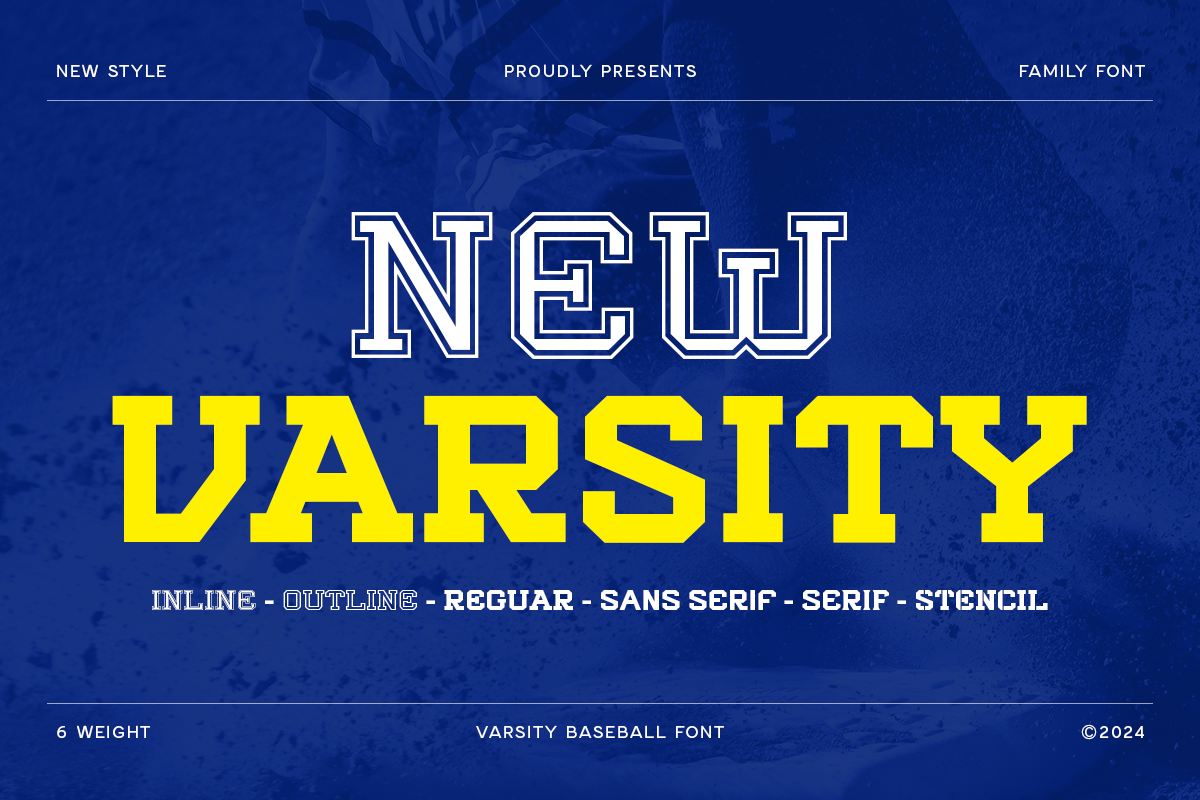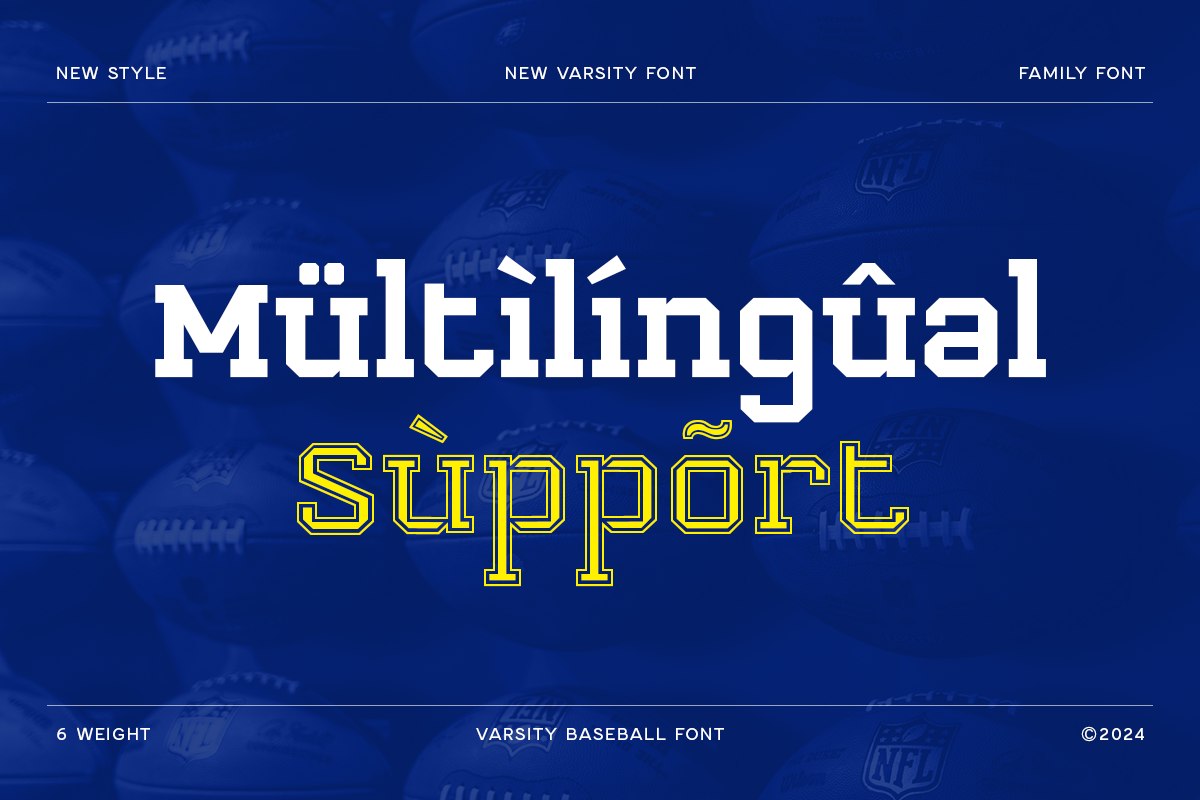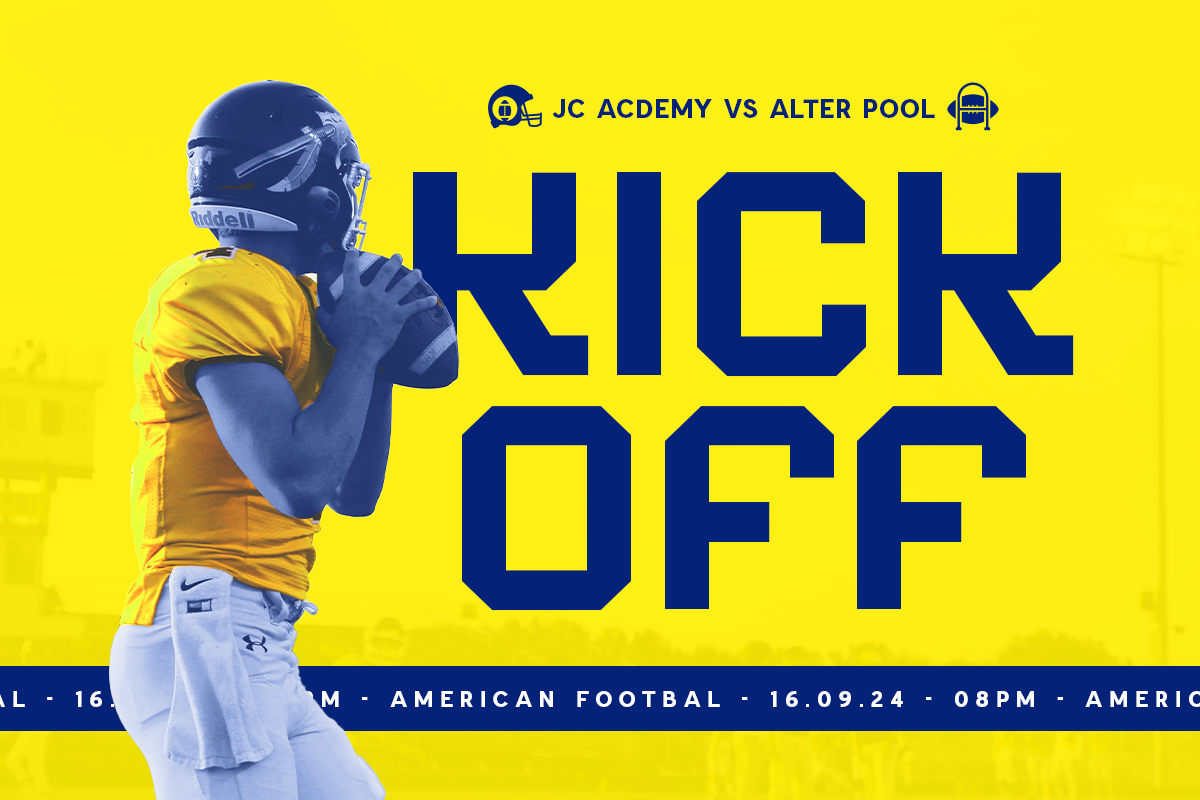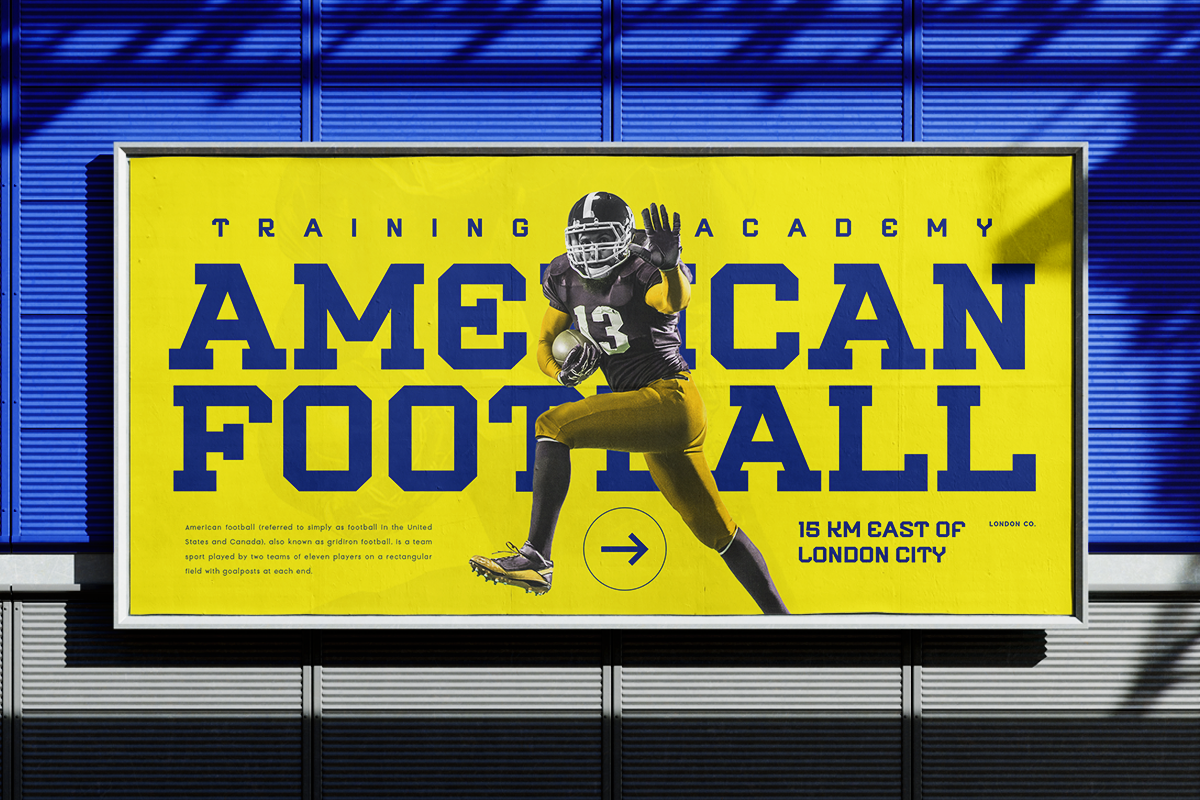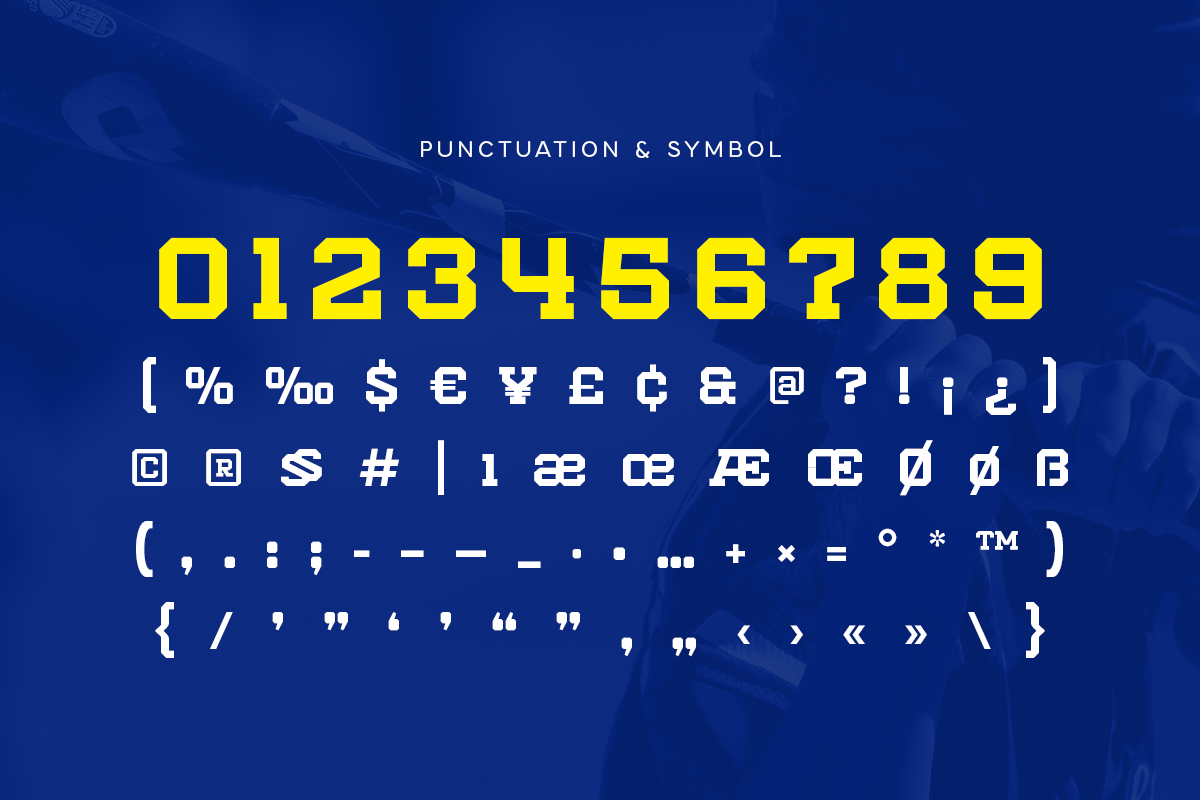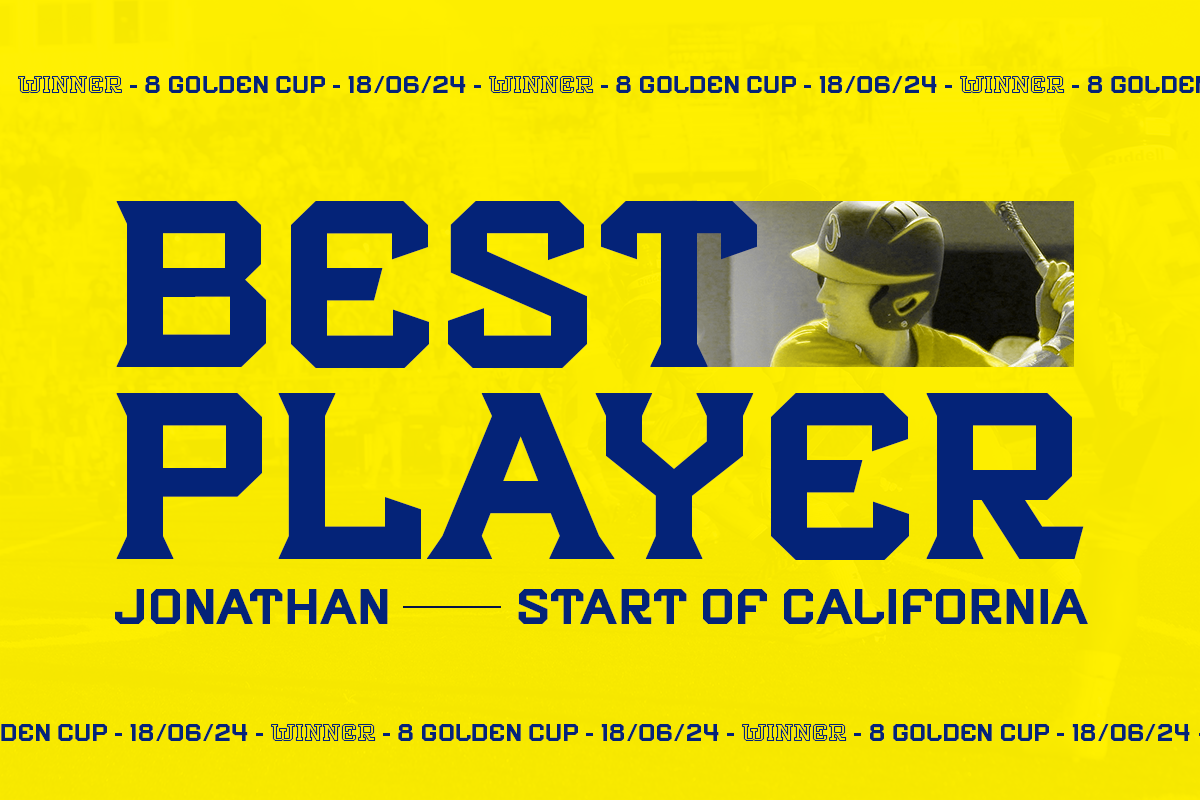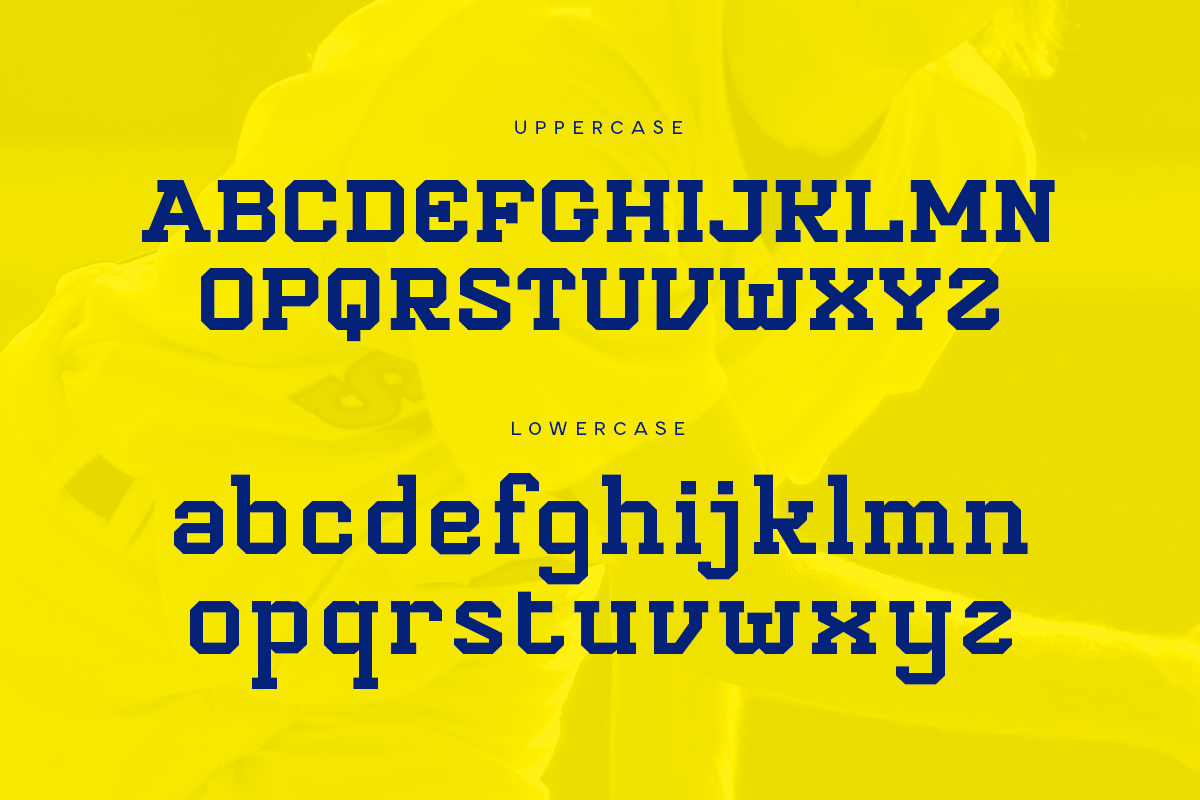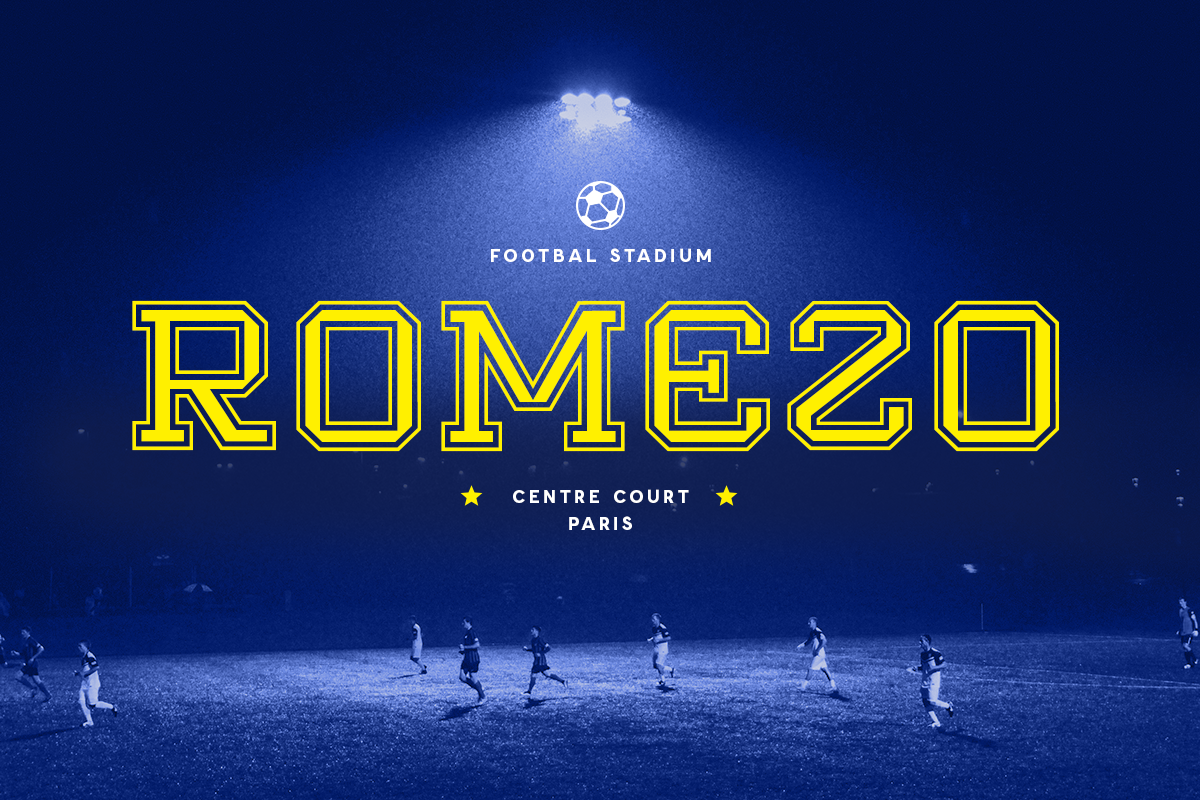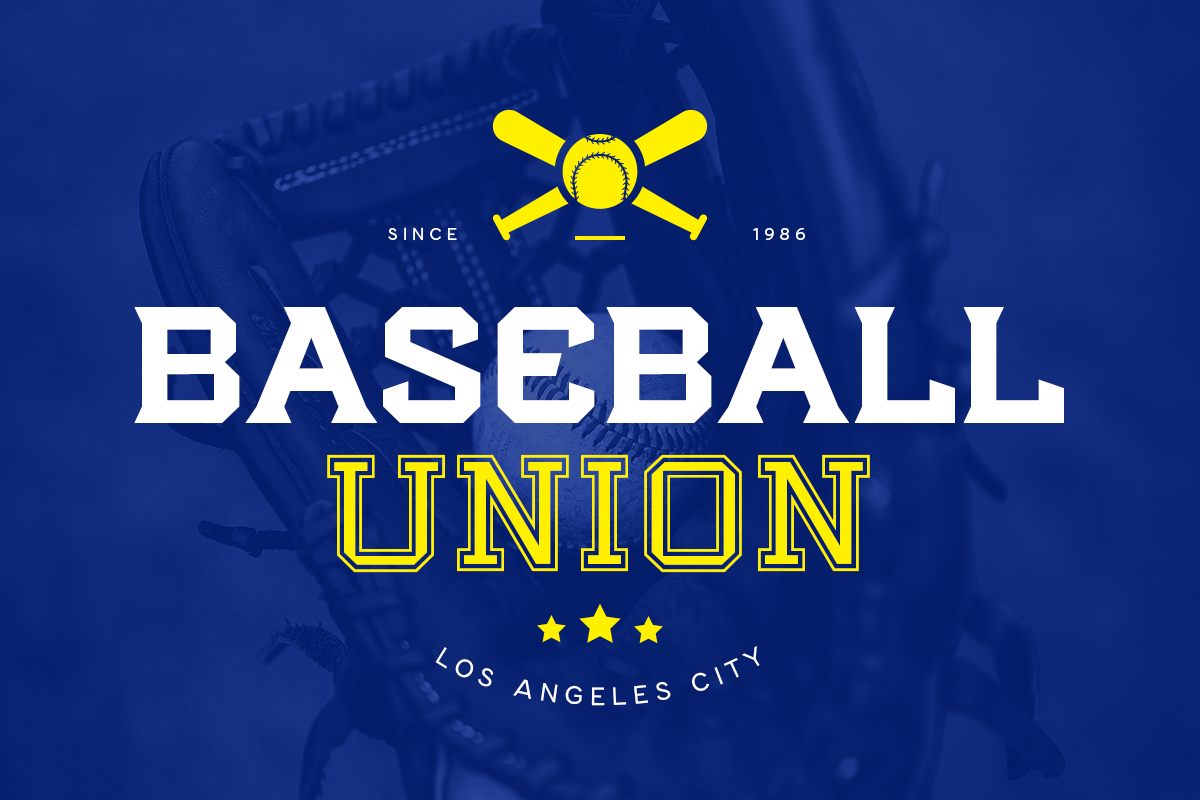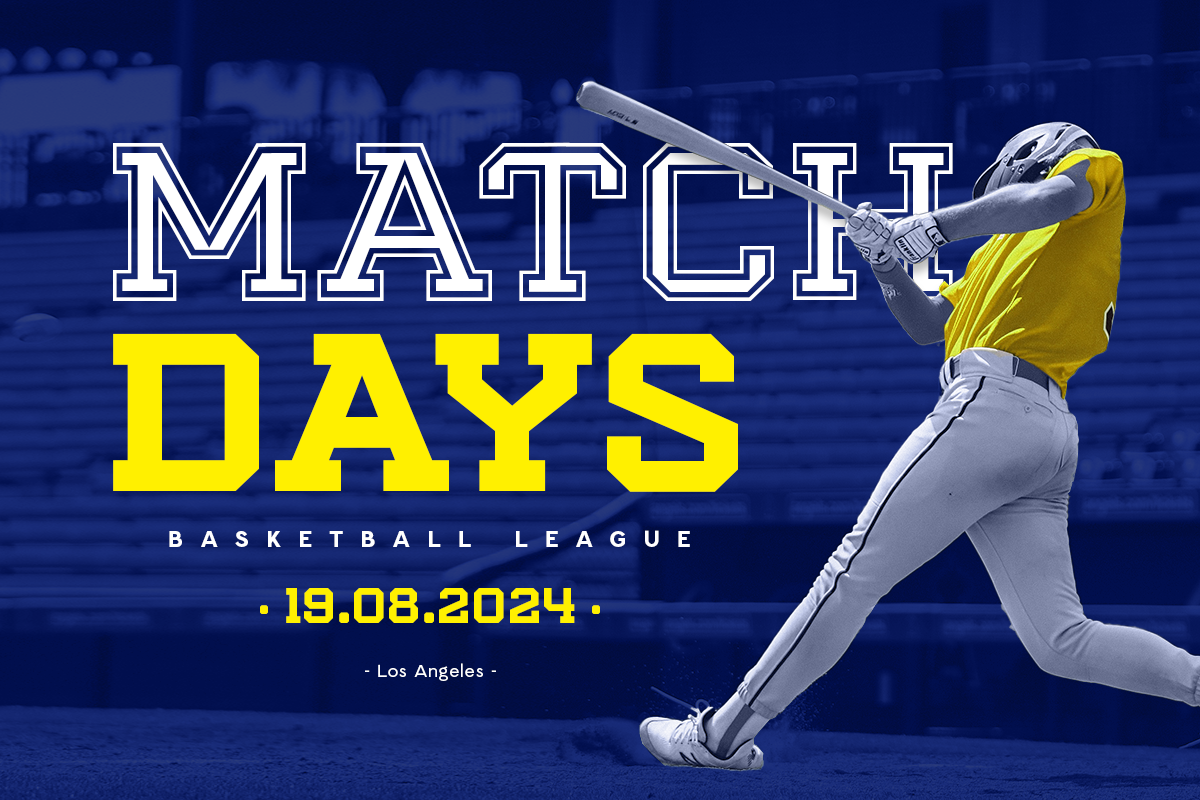
New Varsity - Baseball Font Family
New Varsity, an Unique Baseball Varsity Font Family that we created special for Professional and Modern Varsity Baseball needs that will give you more Unique look and more efficient in area, with 6 Styles in unique shape will be ready to add value of your design. It so nice to leverage designer or product owner that need solutions to make their design look more Professional and modern. And specially for this font, We prepared 6 Styles to help you create unlimited variations for your creative needs.
New Varsity Baseball Varsity Font Family ready with:
- 6 Styles inside
- Ready with Lowercase and Uppercase characters